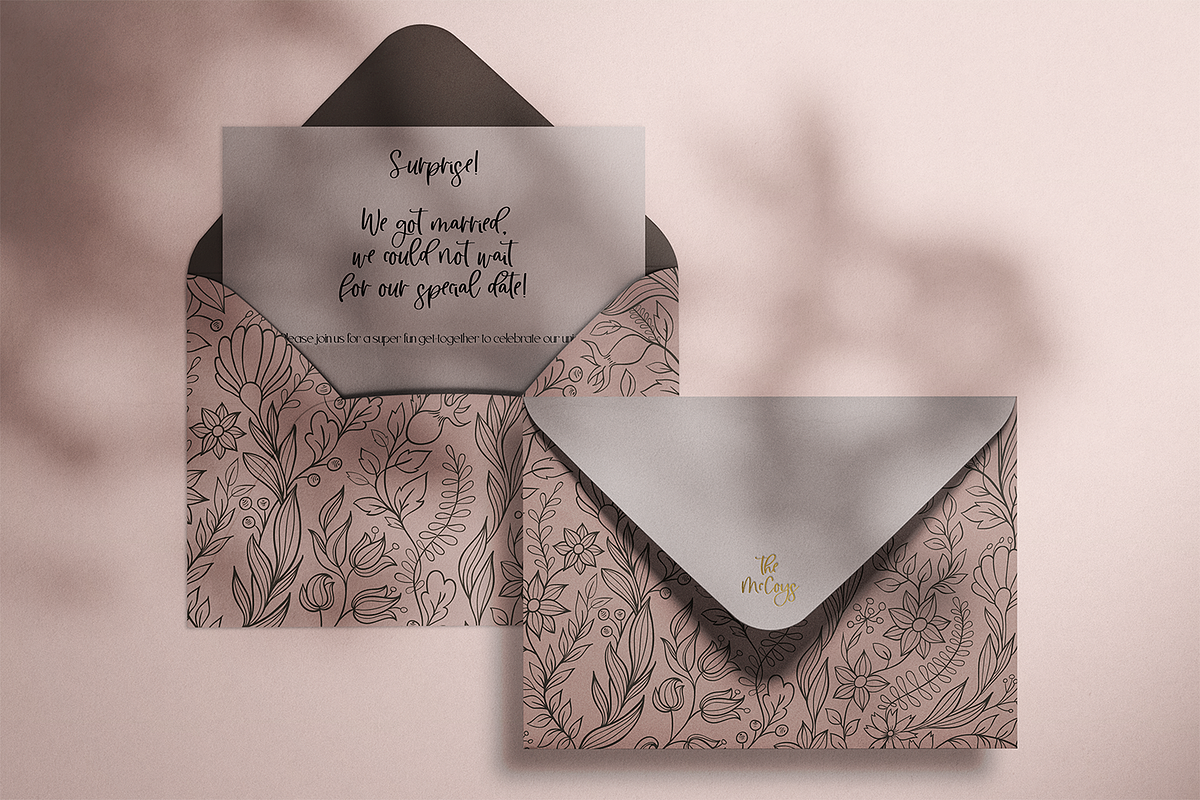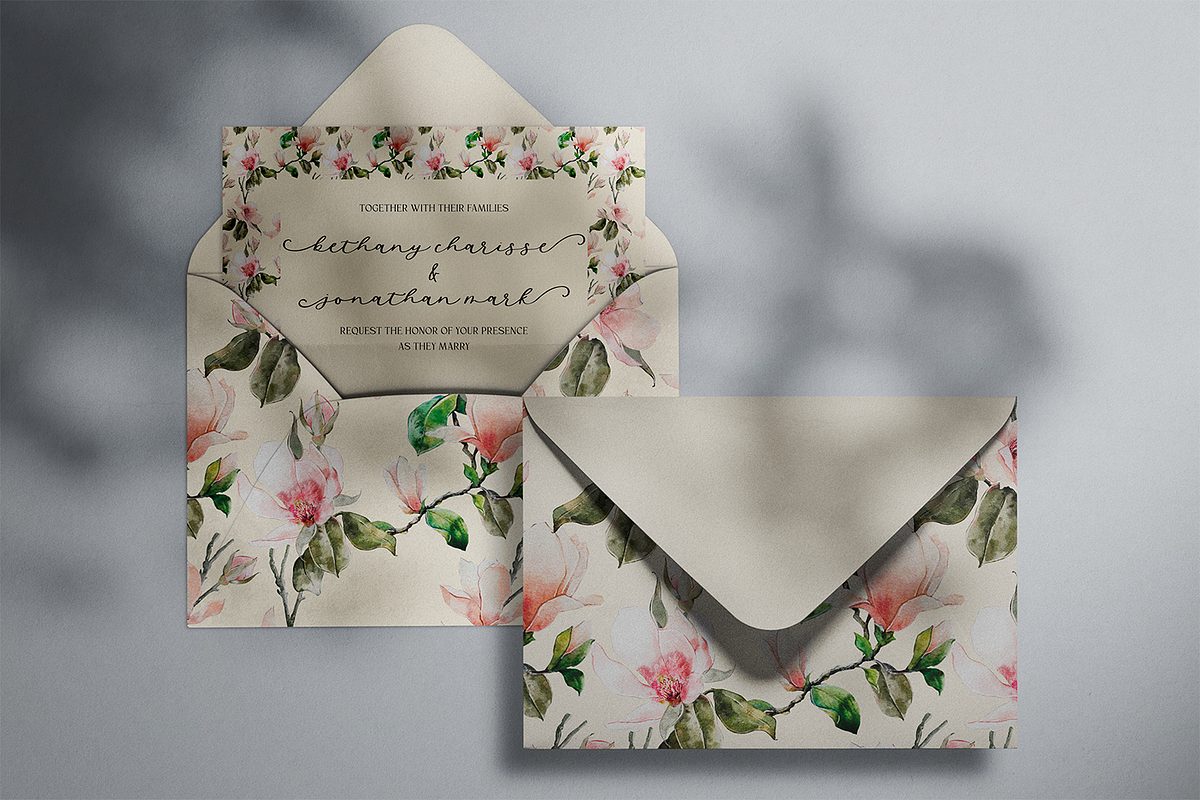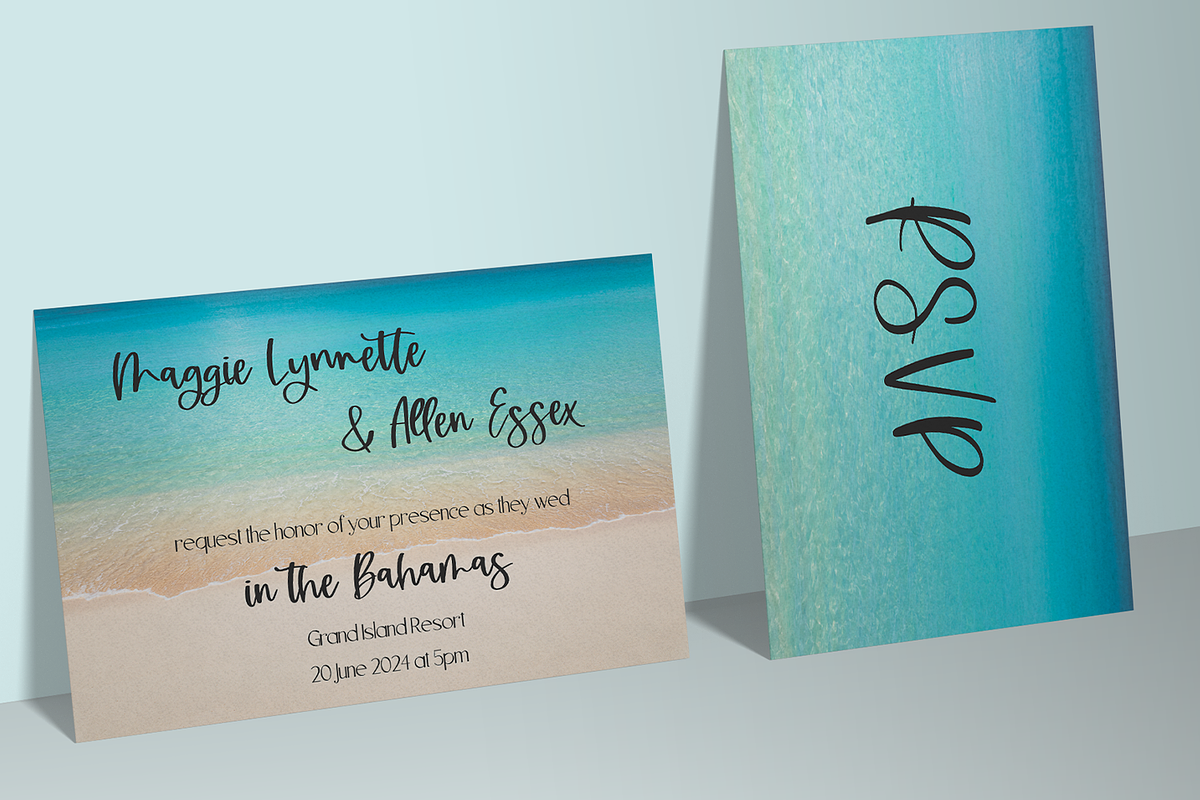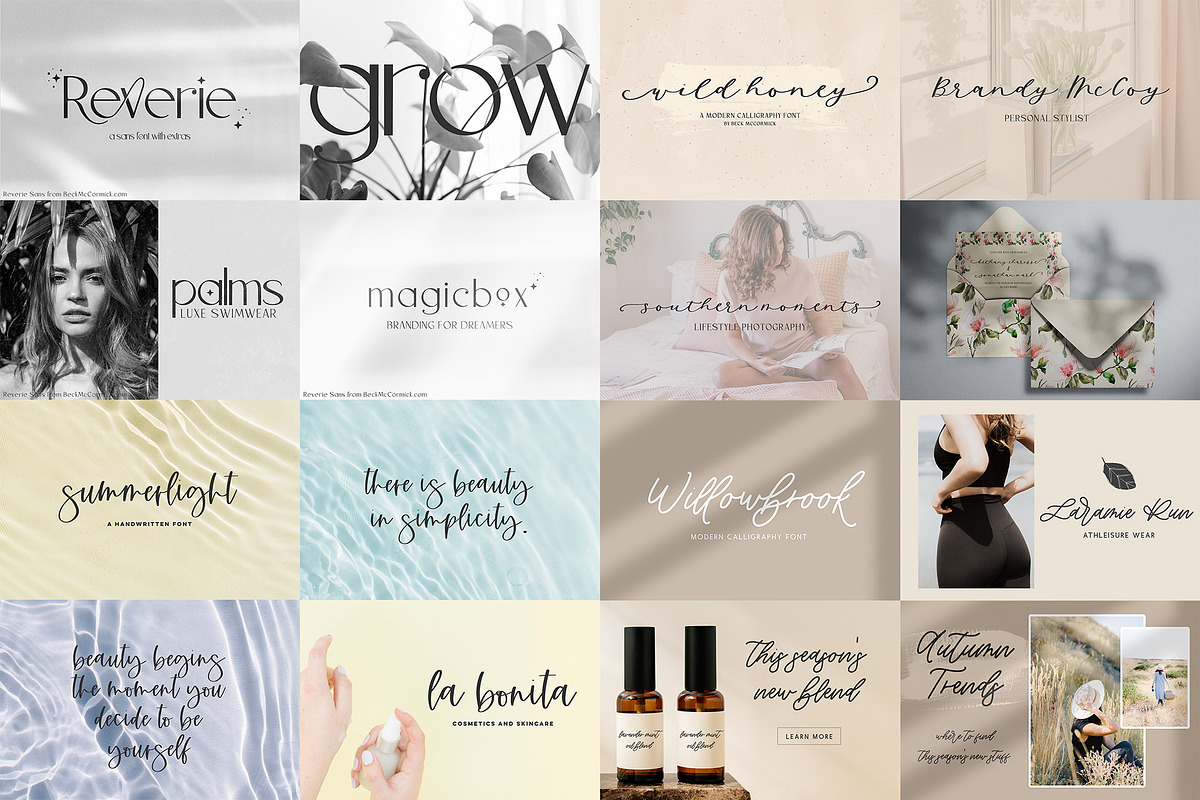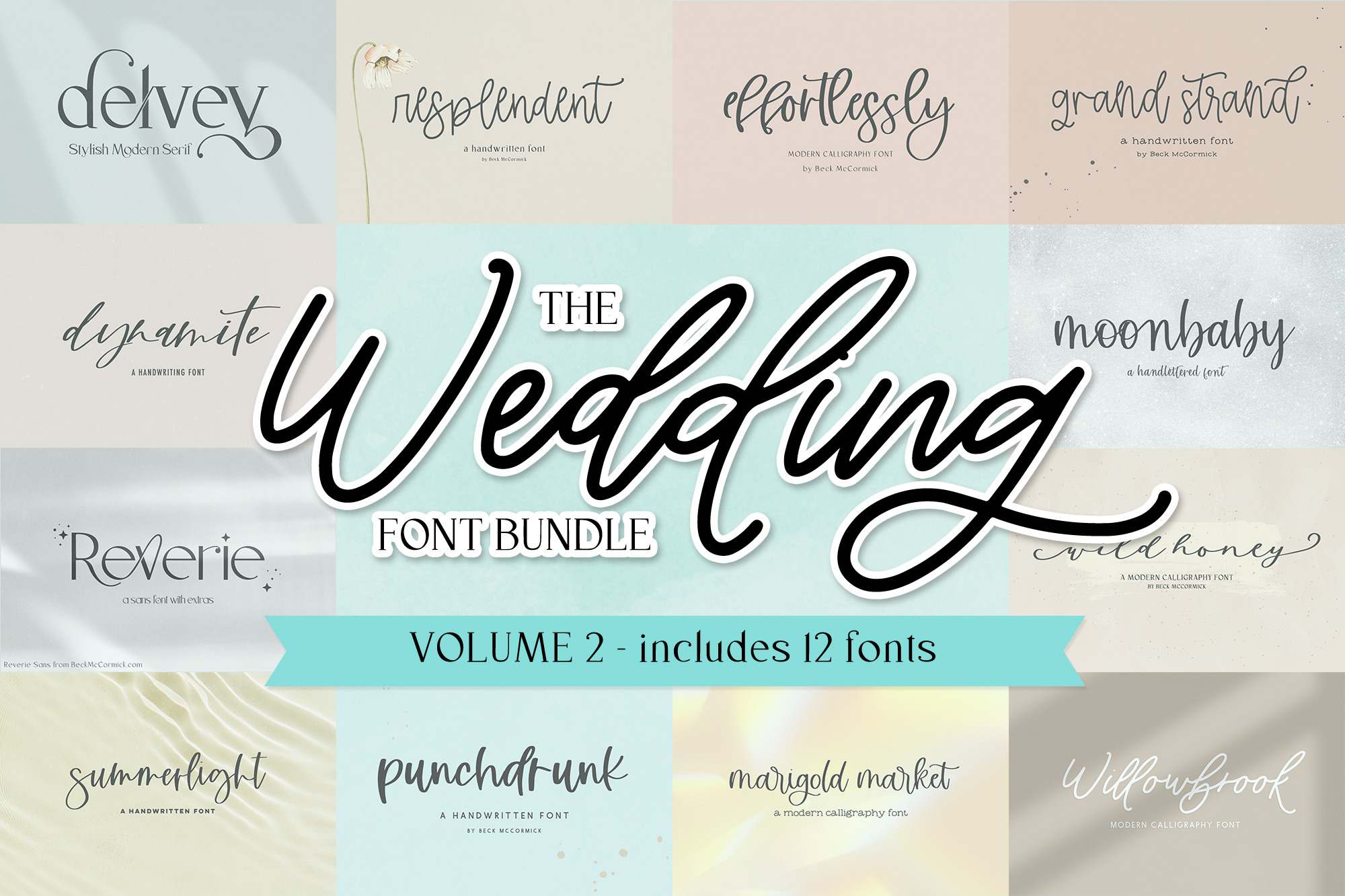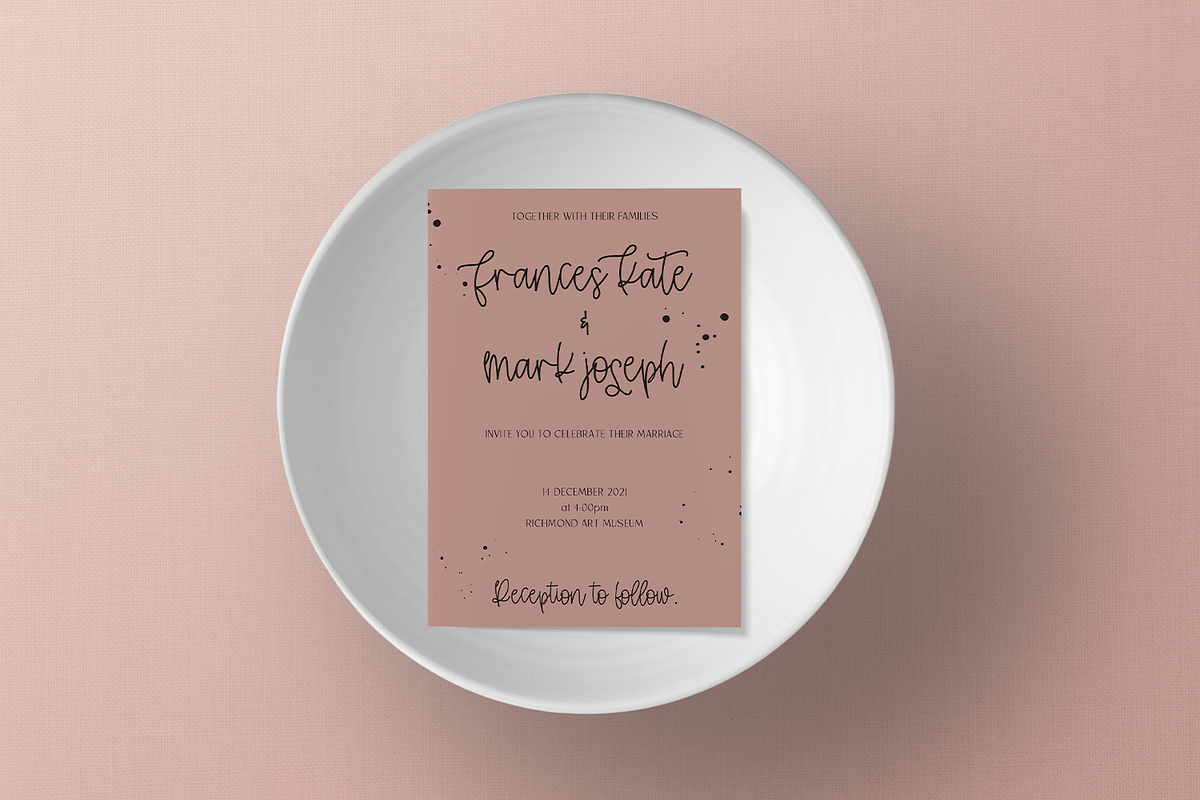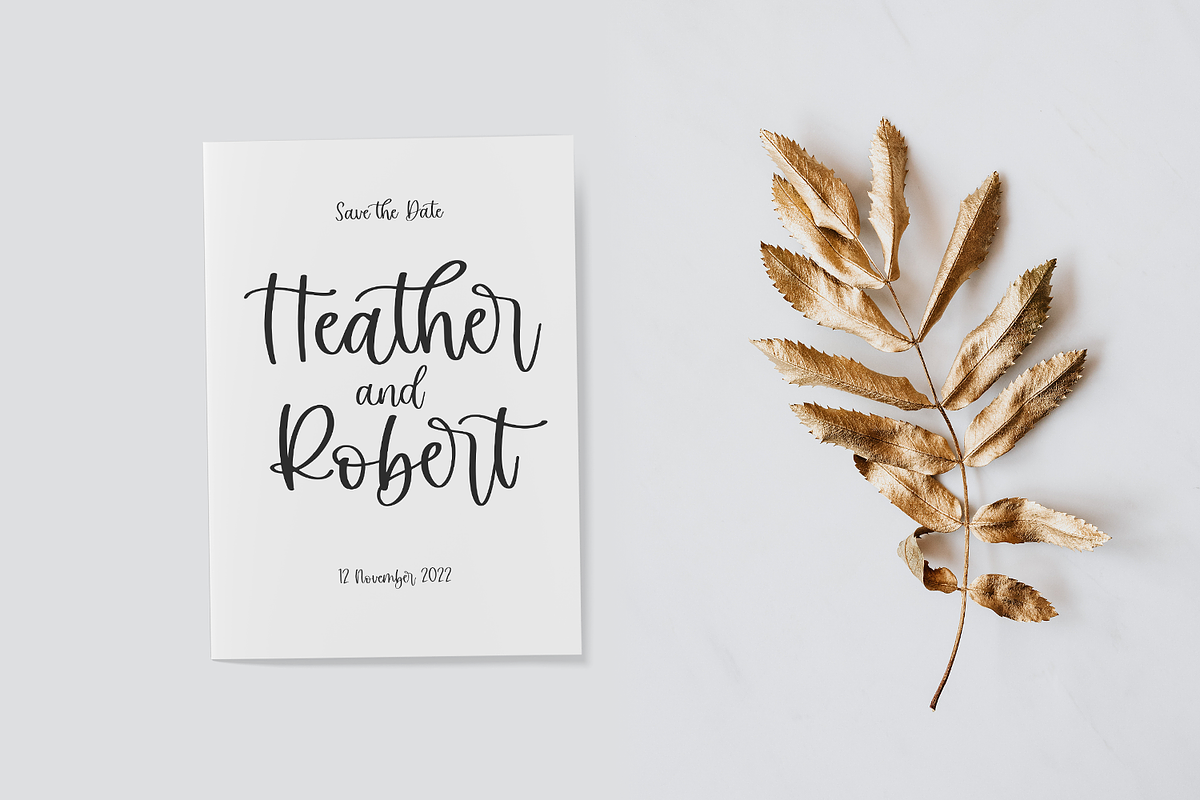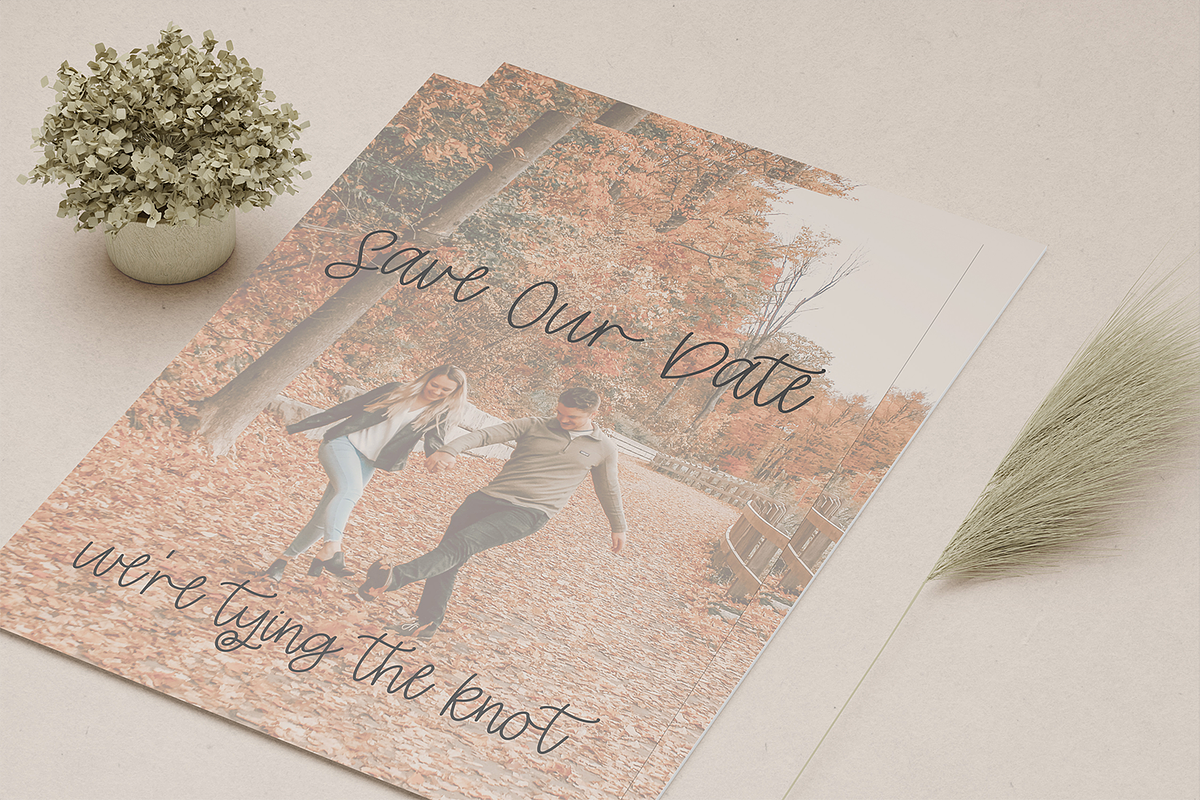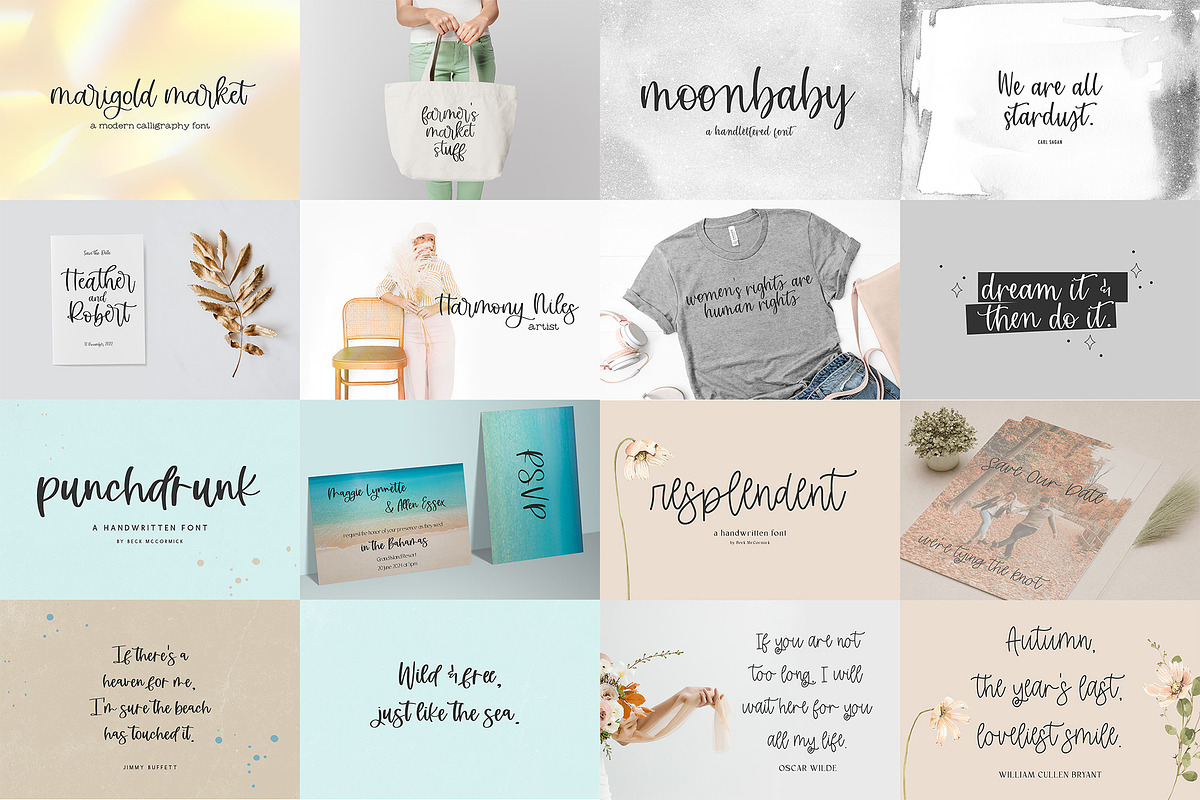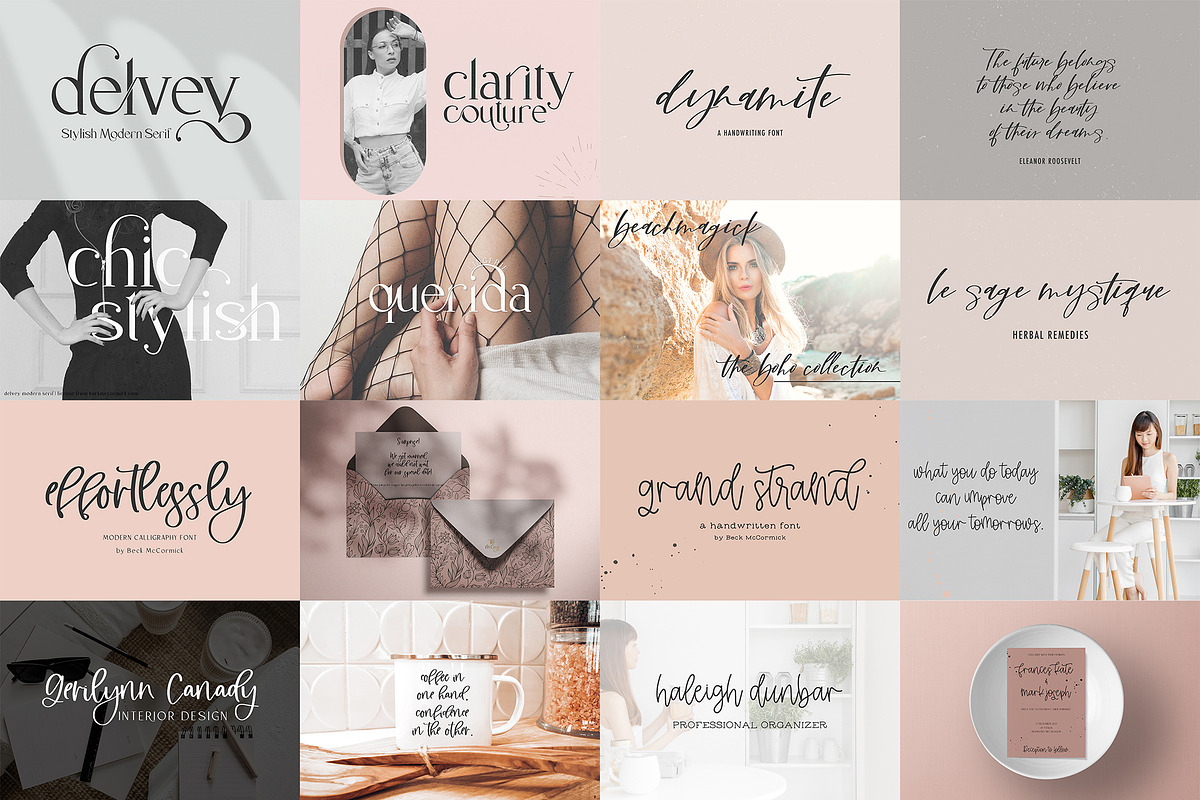
The Wedding Font Bundle Volume 2
Introducing the Wedding Font Bundle, Volume 2!
This font bundle is a beautiful, versatile set of handwritten fonts perfect for styling save the dates, wedding invitation suites, and other wedding materials like place cards or favors! This bundle includes twelve fonts, and includes script fonts, serif fonts, and sans fonts for a variety of mix and match options. These fonts feature a modern, yet classic, style. You can even use these fonts for crafting with your Cricut or Silhouette machine to DIY your favors and decor.
This bundle includes:
- Delvey Modern Serif
- Dynamite Modern Calligraphy Script
- Reverie Modern Sans
- Resplendent Handwritten Script
- Punchdrunk Script
- Effortlessly Modern Calligraphy Script
- Marigold Market Modern Calligraphy Script
- Grand Strand Handwritten Script
- Moonbaby Handlettered Font
- Wild Honey Modern Calligraphy Font
- Willowbrook Modern Calligraphy Font
- Summerlight Script